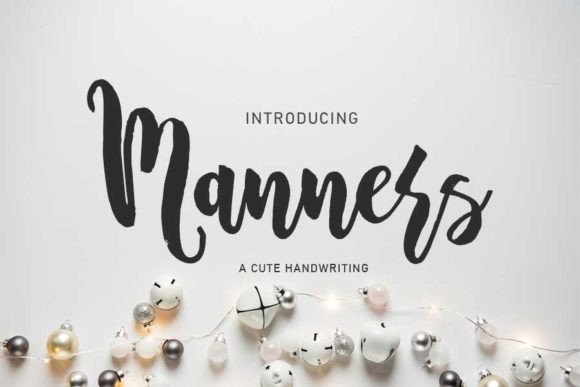
**Manners Font: The Perfect Way to Add a Touch of Romance to Your Instagram**
Do you want to make your Instagram posts stand out from the crowd? Are you looking for a font that is both stylish and easy to read? Look no further than Manners Font! This beautiful script font is perfect for adding a touch of romance and elegance to any post.
Manners Font is a versatile font that can be used for a variety of purposes. It's perfect for creating eye-catching headlines, romantic greeting cards, or even just adding a personal touch to your everyday posts. No matter how you use it, Manners Font is sure to make your Instagram posts look their best.
Here are just a few of the reasons why you'll love Manners Font:
* It's a beautiful script font that is sure to add a touch of romance to any post.
* It's easy to read, even at small sizes.
* It's versatile and can be used for a variety of purposes.